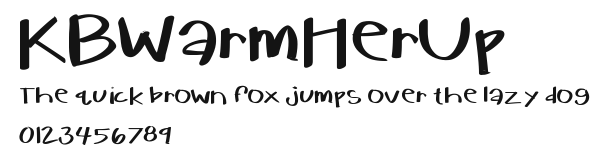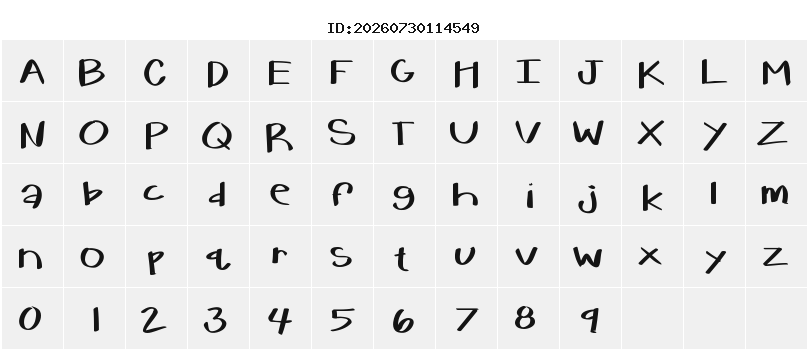
• Font Name: KBWarmHerUp
• Full Font Name: KBWarmHerUp
About KBWarmHerUp.ttf
KBWarmHerUp.ttf is a modern, elegant sans-serif font designed for ultimate readability and visual harmony. Perfect for branding, headlines, web design, and print materials.